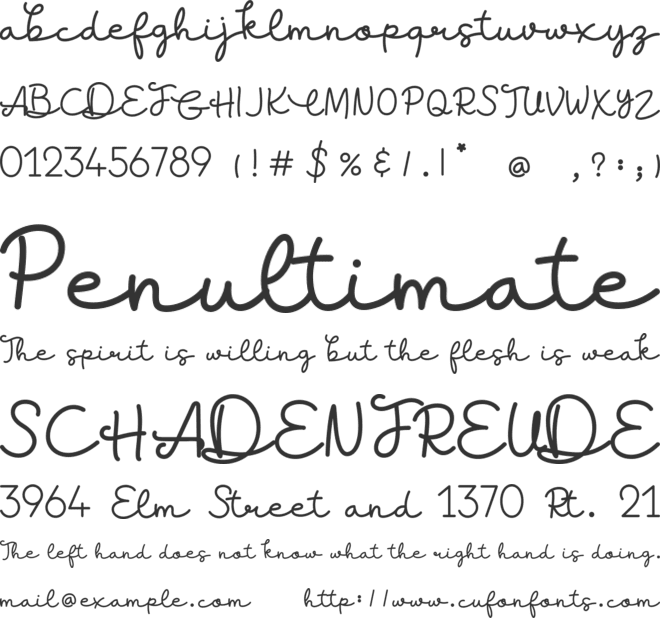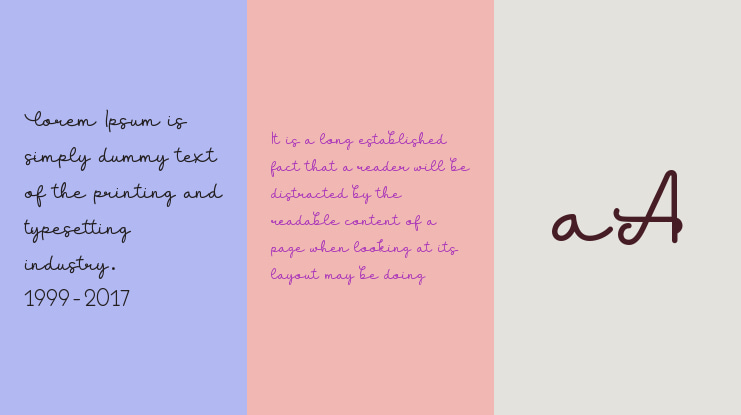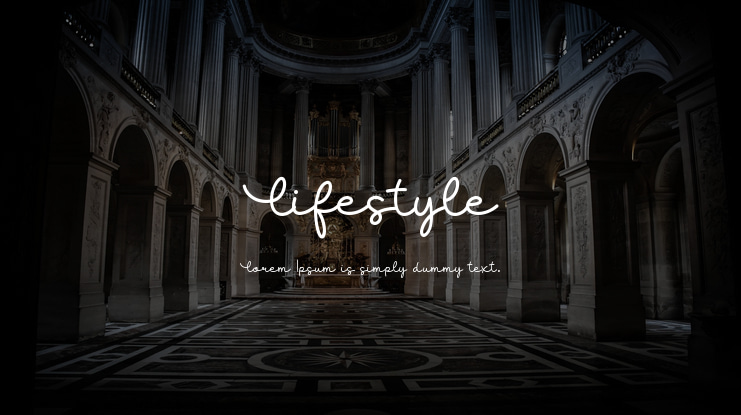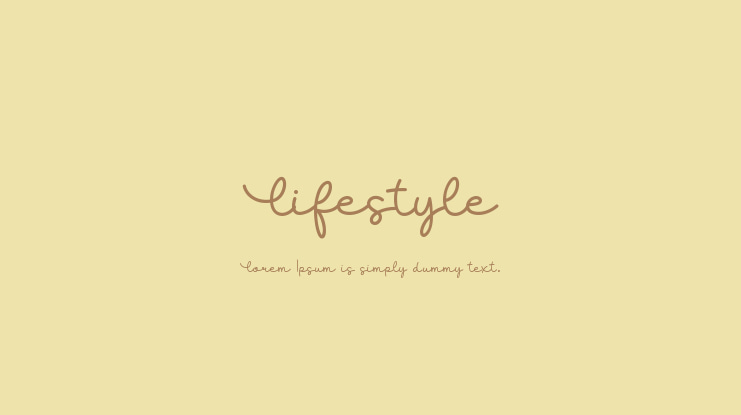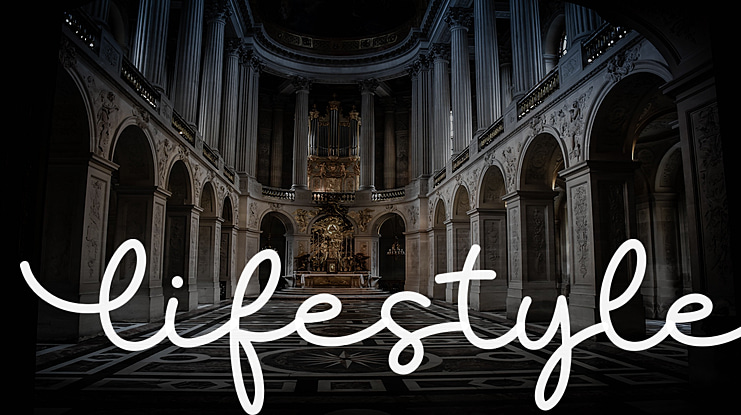
Lifestyle Font
This is lifestyle, our newest handwritten font. It comes with loads of contextual alternates, initial & terminal forms, ligatures and more which sums up to an incredible amount of 600 glyphs. Each letter is handdrawn and then reshaped to match them all together.